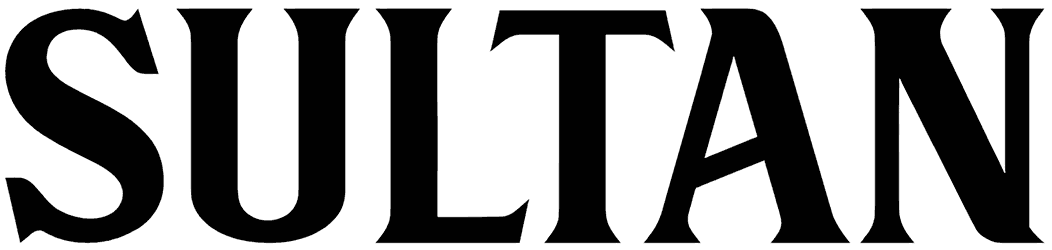
Sultan Font
The Sultan font shows the design of an informal elegant font style. The characters of this serif font with an outstanding curved line distinguish it from other serif fonts.